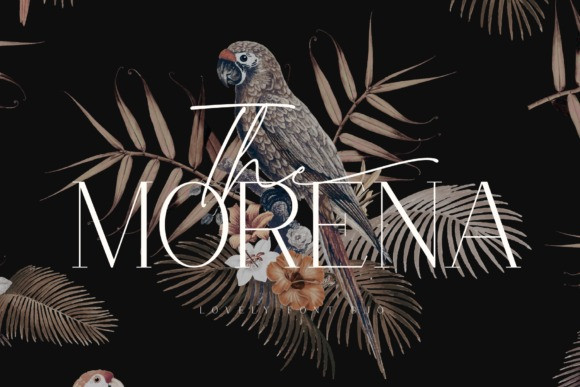
Morena Font
Morena Font consists of two fonts designed to complement each other perfectly. Together or apart, these fonts are ideal for adding a chic and cheery touch to your crafts. This font is PUA encoded which means you can access all glyphs and swashes with ease!